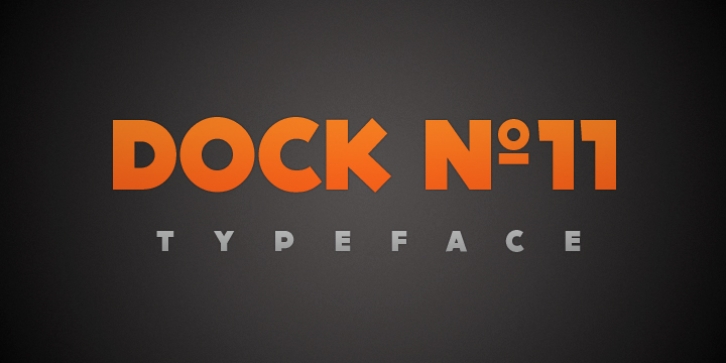
DOCK11
is a heavy headline typeface with an elegant look. This typeface will work well for headings, short paragraphs, magazines, web, posters, logos and any type of graphic design.